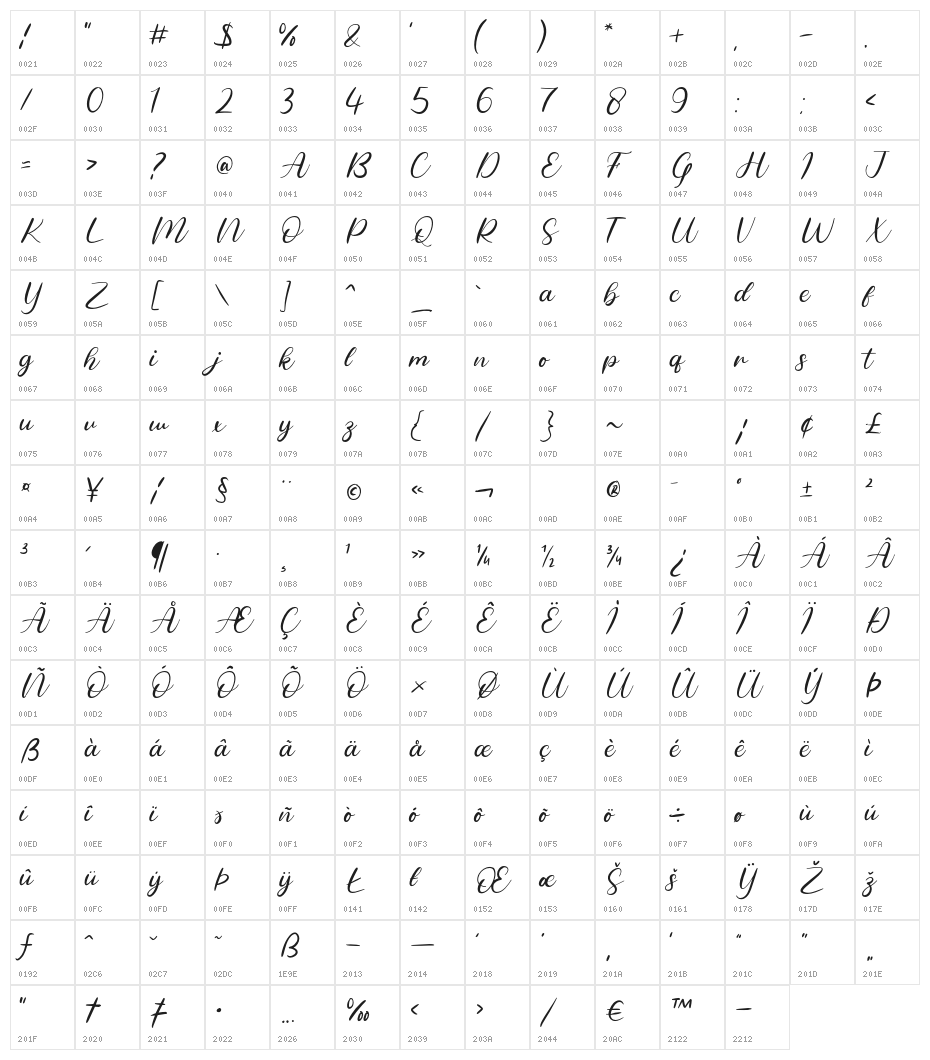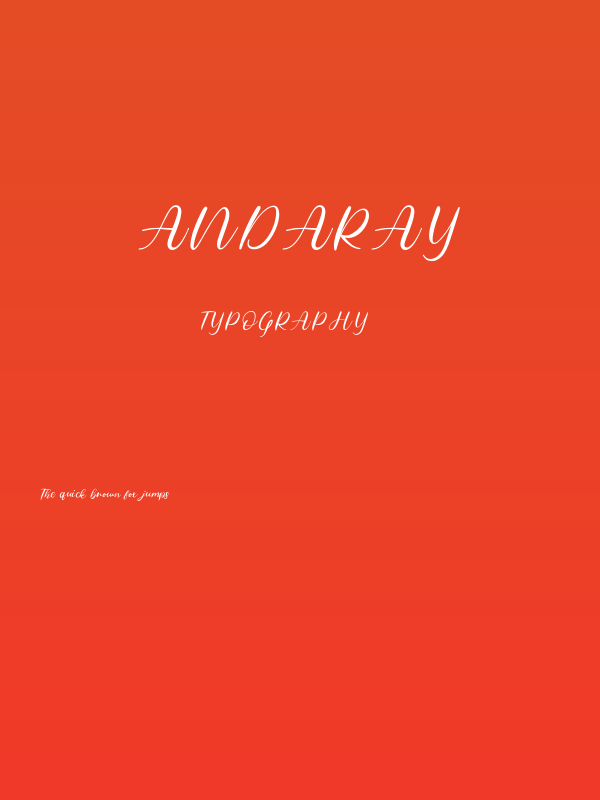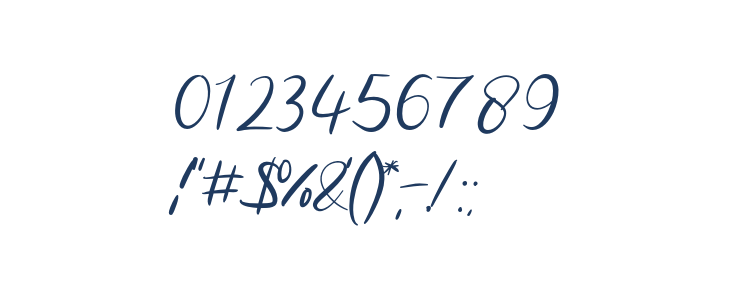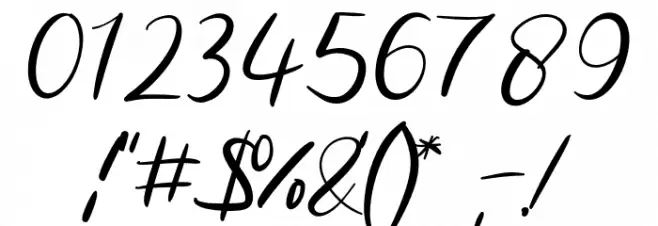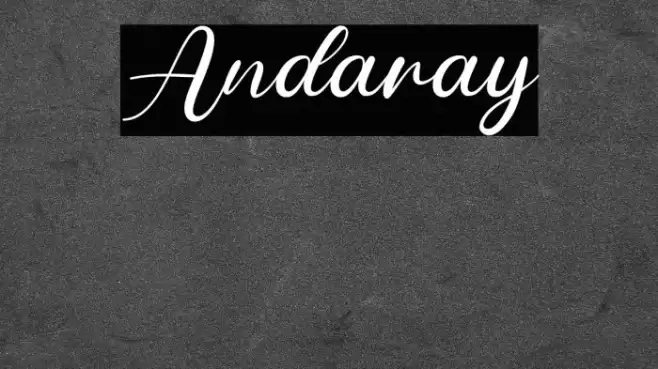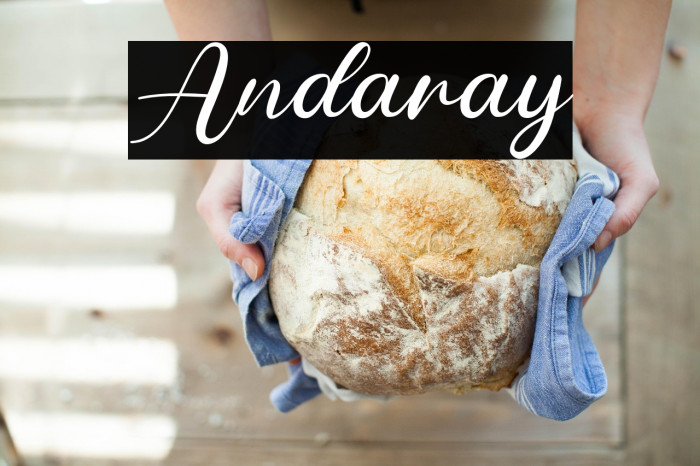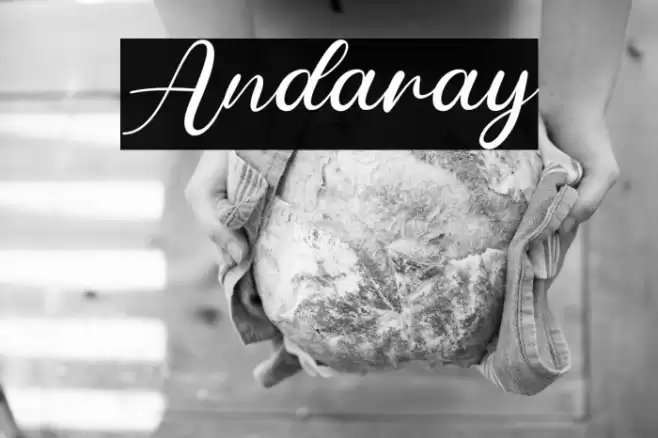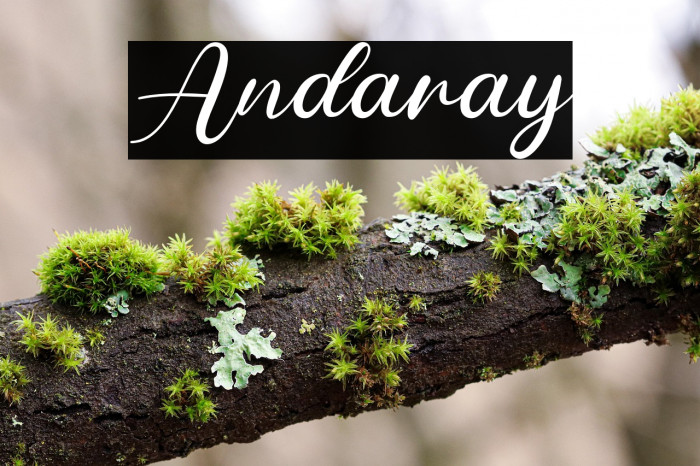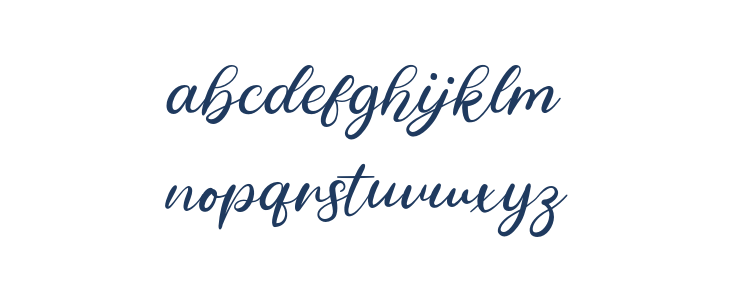
Andaray Font
Andaray Description
This elegant script font features flowing, cursive letters with a smooth and graceful appearance. The uppercase letters are characterized by their sweeping curves and loops, giving a sense of fluidity and motion. The lowercase letters maintain a consistent style, with gentle connections between characters that enhance readability. Numbers and special characters are designed to complement the overall aesthetic, maintaining the same flowing lines and curves. The font's design is both sophisticated and approachable, making it suitable for a variety of applications where a touch of elegance is desired.
| Overall Style | Elegant |
| Use Case | Logos, Invitations, Decorative text |
| Proposed Projects | Ideal for wedding invitations, elegant branding, greeting cards, and upscale packaging. |